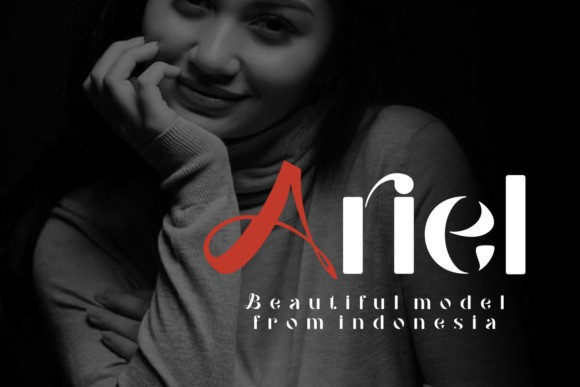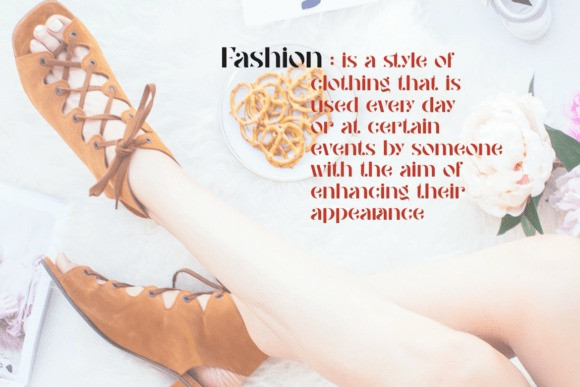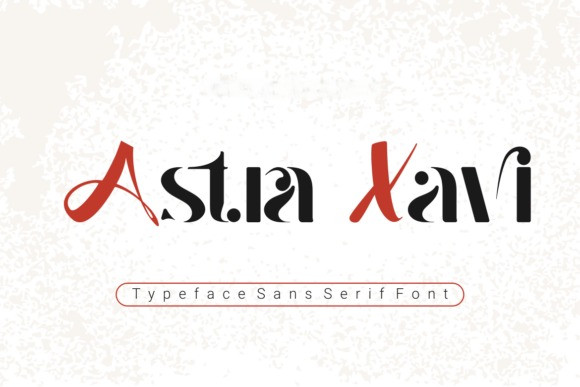
Astra Xavi Font
Astra Xavi Font is a refined and expressive sans serif font with a high-fashion edge. Combining sharp modern cuts with elegant curves and unique alternates, this typeface is perfect for luxury branding, editorial layouts, and stylish logos. It delivers both sophistication and artistic flair.